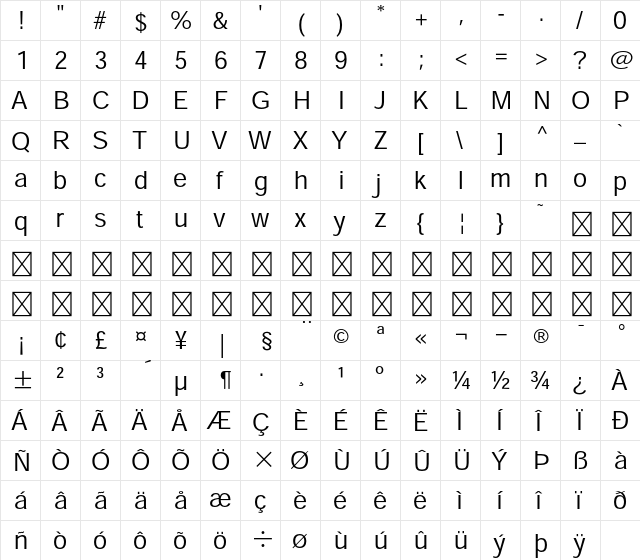
Heisei Kaku Gothic Std W3 Font Preview
Heisei Kaku Gothic Std W3
Heisei Kaku Gothic Std W3 Font Details
Design Context for Heisei Kaku Gothic Std Typeface
Heisei Kaku Gothic Std has the quiet confidence of well-executed sans-serif typography: versatile, unobtrusive, and dependable at any size.
Font Pairing: Works well alongside a characterful serif or display font that can carry the expressive load while Heisei Kaku Gothic Std handles the functional copy.
Pro Tip: Pair Heisei Kaku Gothic Std with a display or serif font for headlines — its neutral character makes it an excellent supporting player in complex typographic systems.